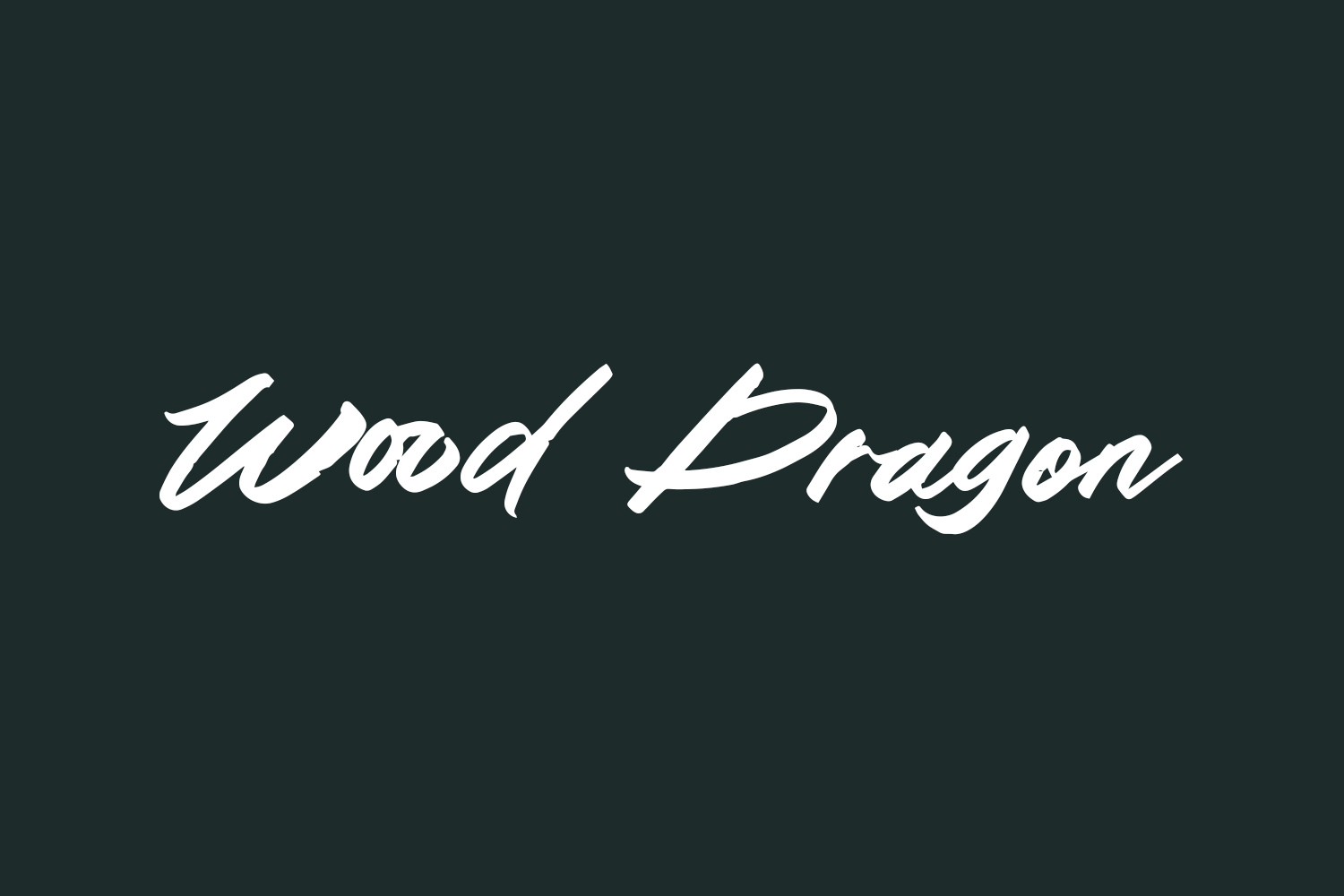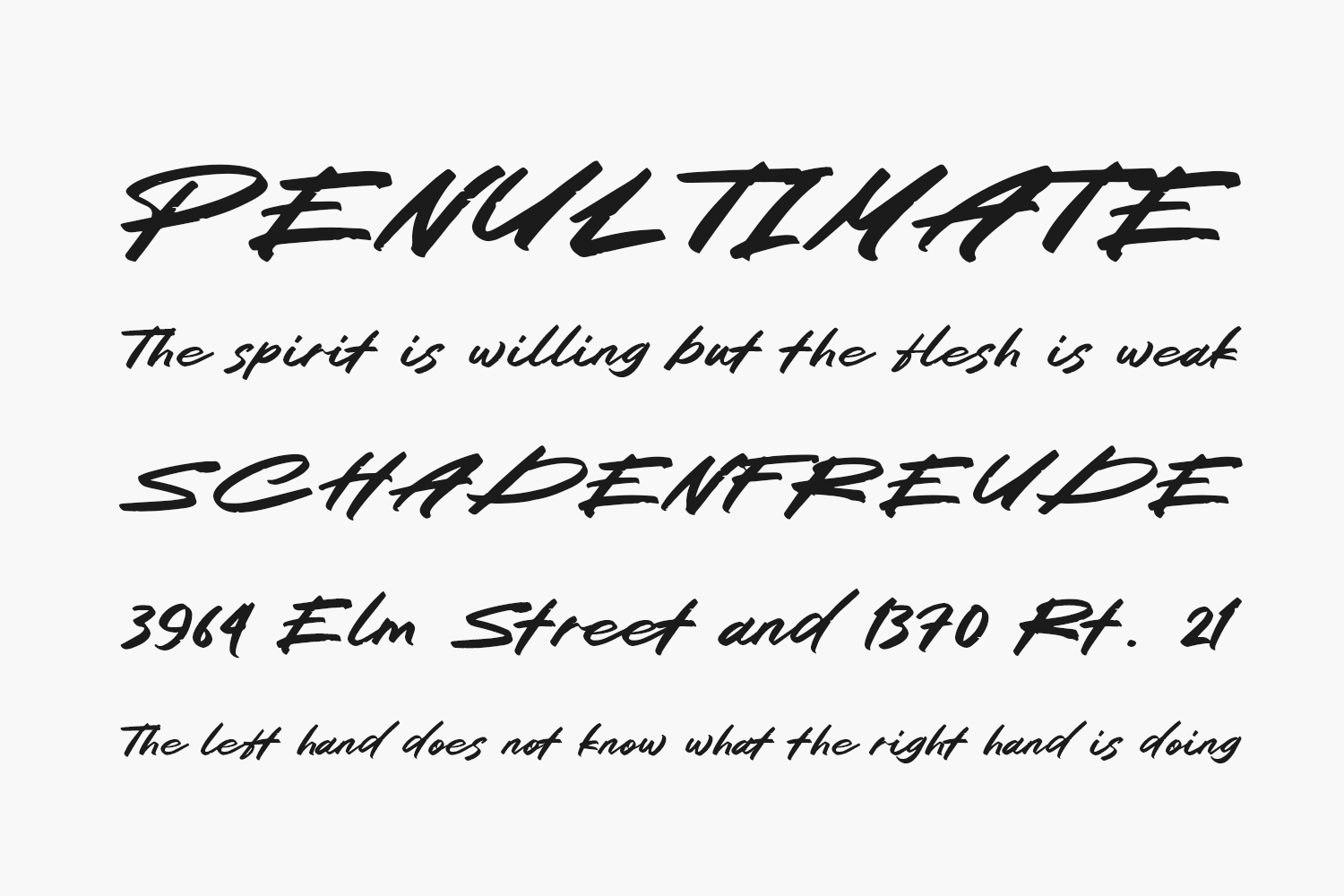
Wood Dragon Free Font embodies a contemporary, rugged script font ideal for a diverse range of projects including posters, logos, magazines, book covers, banners, and beyond! Elevate your designs with this exceptional font, perfect for adding a touch of modernity to your creative work. Its versatility allows seamless integration into a vast array of projects, making your creative ideas truly stand out. Acquire Wood Dragon now and witness how it transforms your designs into visually stunning and memorable creations. Wood Dragon Free Font was designed by Khurasan and is free for personal or commercial use.